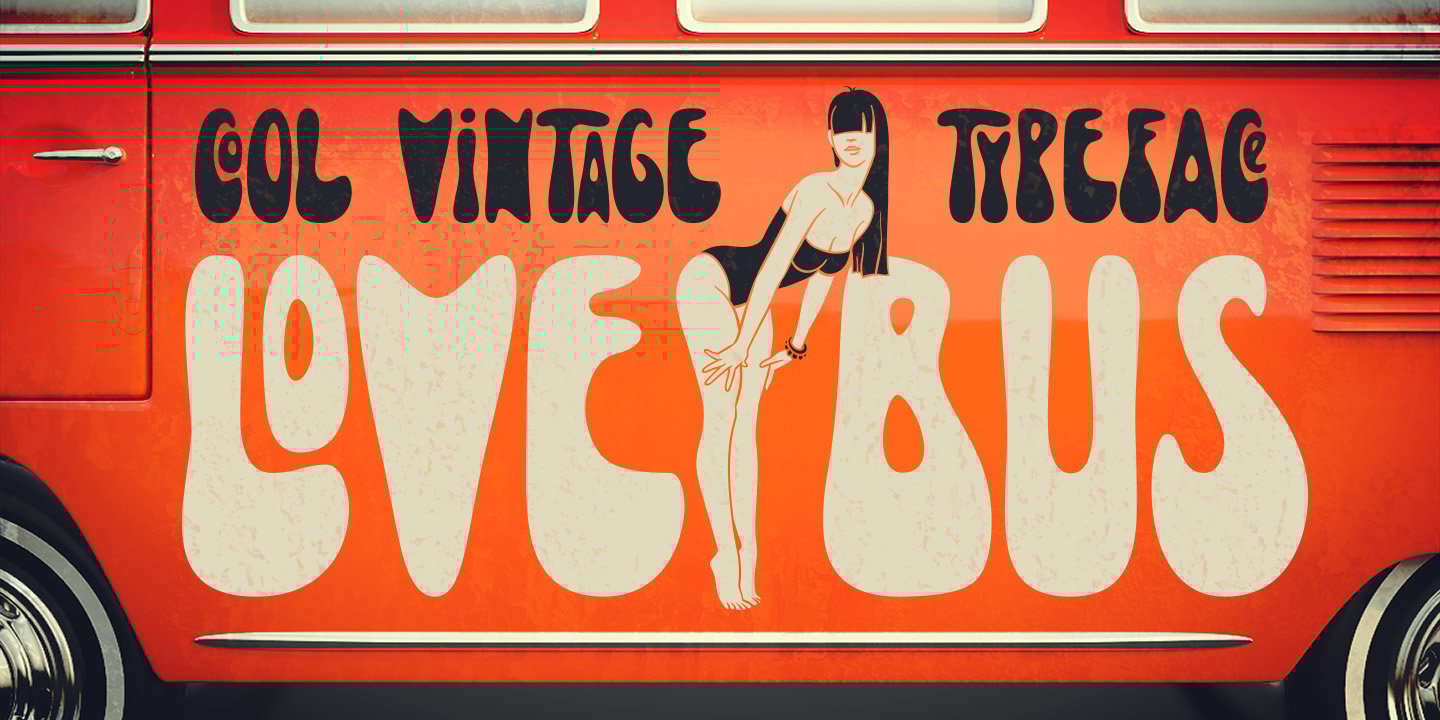
Lovebus Font Free Download delivers a groovy typeface that embodies peace, love, and retro sophistication with flower power charm. However, for commercial use, you must purchase this font. You can download it for free for testing purposes only.
Lovebus Font excels in nostalgic design applications including vintage music festival branding, retro café signage, 1960s-themed events, peace movement materials, hippie lifestyle brands, vintage van restoration graphics, flower power merchandise, bohemian fashion labels, groovy record store communications, and counterculture celebration campaigns. This psychedelic typeface brings authentic hippie spirit to retro design projects.
What makes Lovebus Font truly exciting is its perfect capture of 1960s counterculture aesthetics with flowing letterforms that evoke peace signs, flower children, and the transformative spirit of the Summer of Love. The font features groovy characters with rounded curves and peaceful proportions that convey harmony, freedom, and authentic hippie philosophy. Its flower power personality and peace-loving character make it ideal for brands celebrating love revolution, environmental consciousness, and audiences who appreciate vintage culture, peaceful protest, and the timeless message of love conquering hate through authentic hippie values.
The Lovebus Font family typically includes Regular weight with potential psychedelic variations and flower power elements that enhance its groovy character. These peaceful options provide designers with complete hippie styling while maintaining the font's distinctive retro elegance and counterculture presentation across various peace applications and vintage contexts.
Whether you're developing vintage lifestyle branding, creating peace movement campaigns, or designing retro marketing materials, Lovebus Font Free Download provides the groovy authority and peaceful sophistication that flower power projects require. Its exceptional peace and vintage appeal make it invaluable for designers working with retro brands, vintage festivals, and peace-focused organizations requiring typography that celebrates hippie heritage, promotes love and peace, and reflects the enduring spirit of the counterculture movement that changed the world through music, art, and the revolutionary belief that love can transform society.